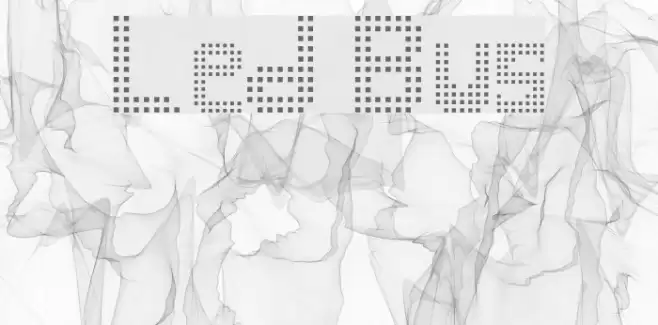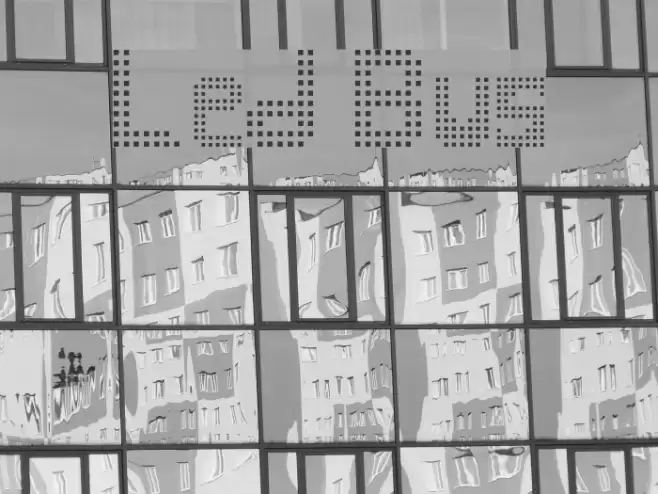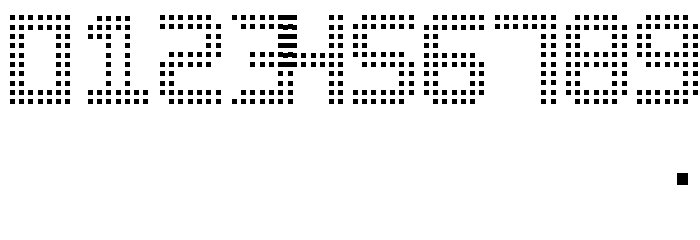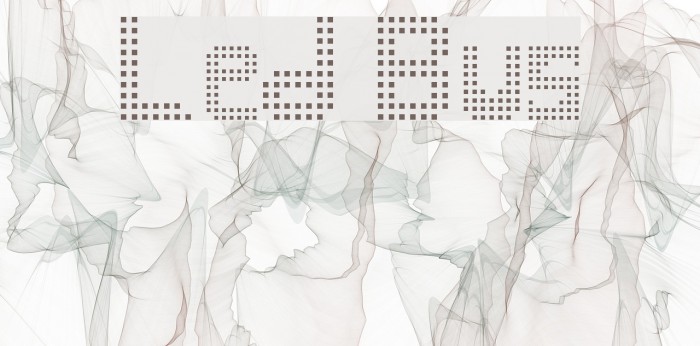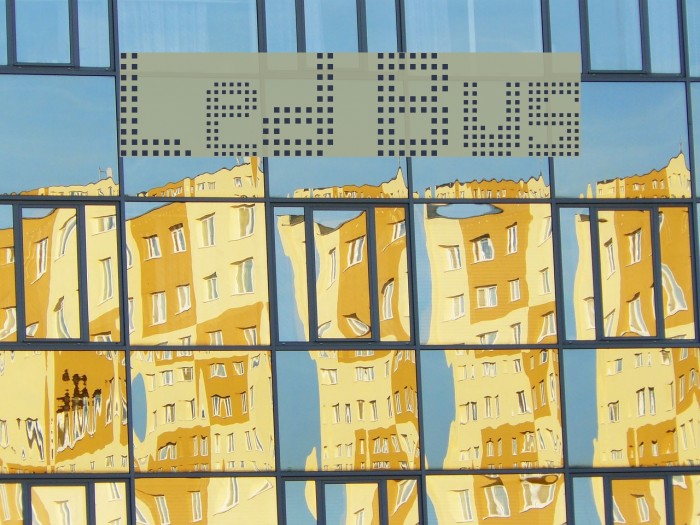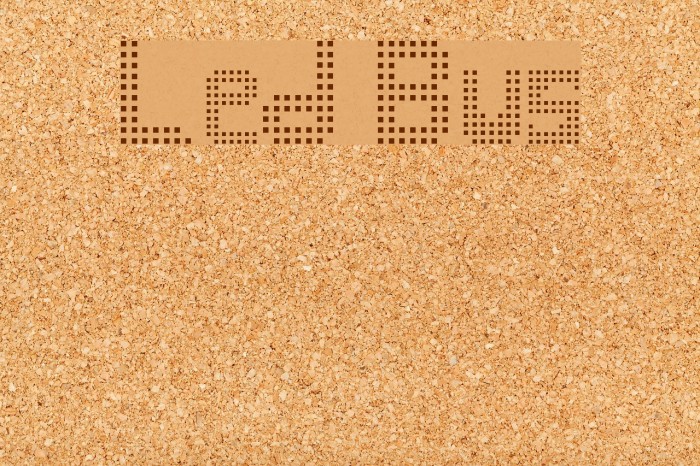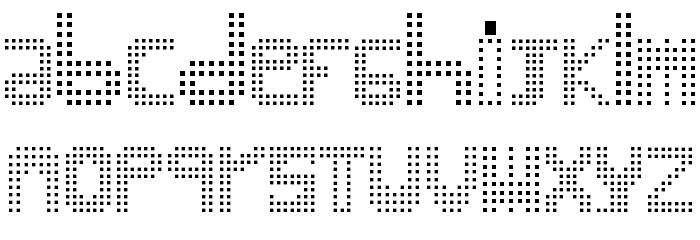
Led Bus Font
Led Bus Description
This font is designed to mimic the appearance of LED displays, characterized by its dotted, grid-like structure. Each character is composed of small, evenly spaced dots, creating a digital and modern aesthetic. The uppercase and lowercase letters, as well as numbers and special characters, maintain a consistent pattern, enhancing readability while preserving the unique style. The font's geometric precision and uniformity make it ideal for digital displays or projects that require a tech-inspired look.
A digital, LED-inspired font with a dotted, grid-like structure.